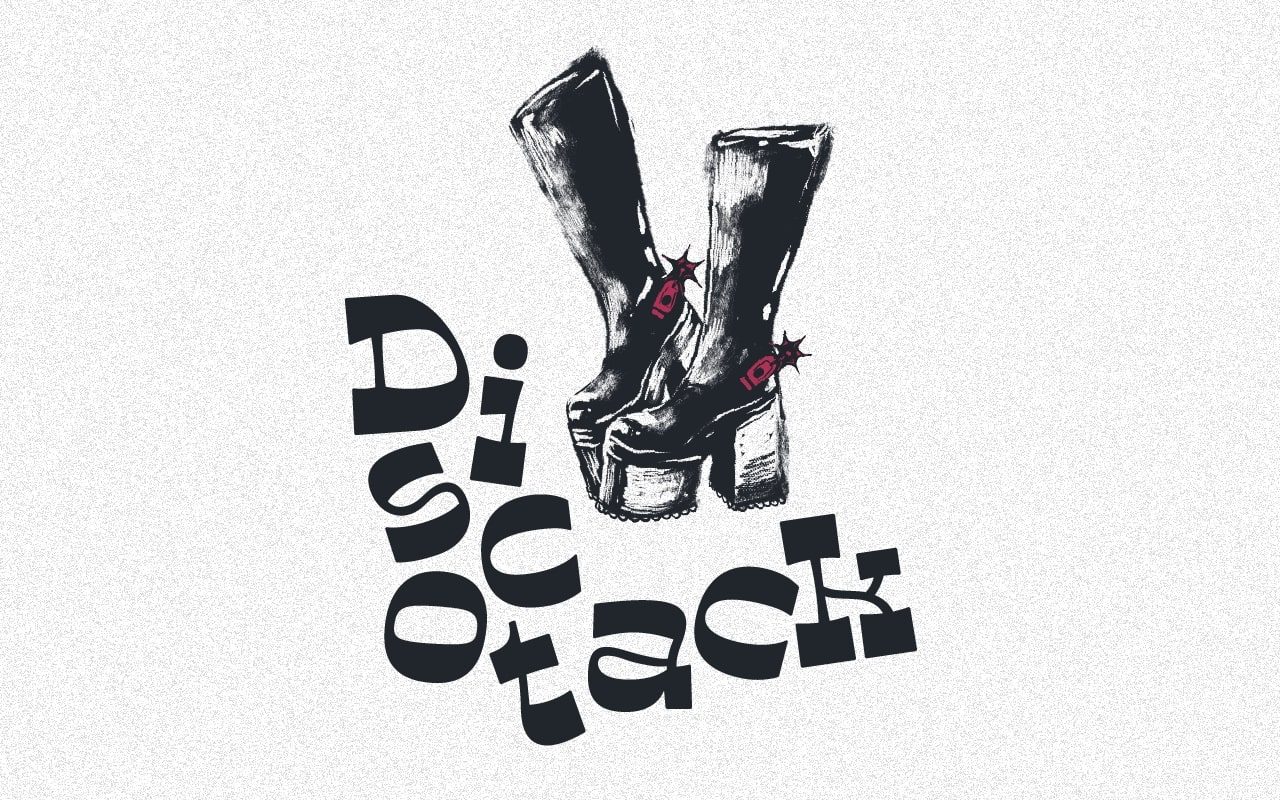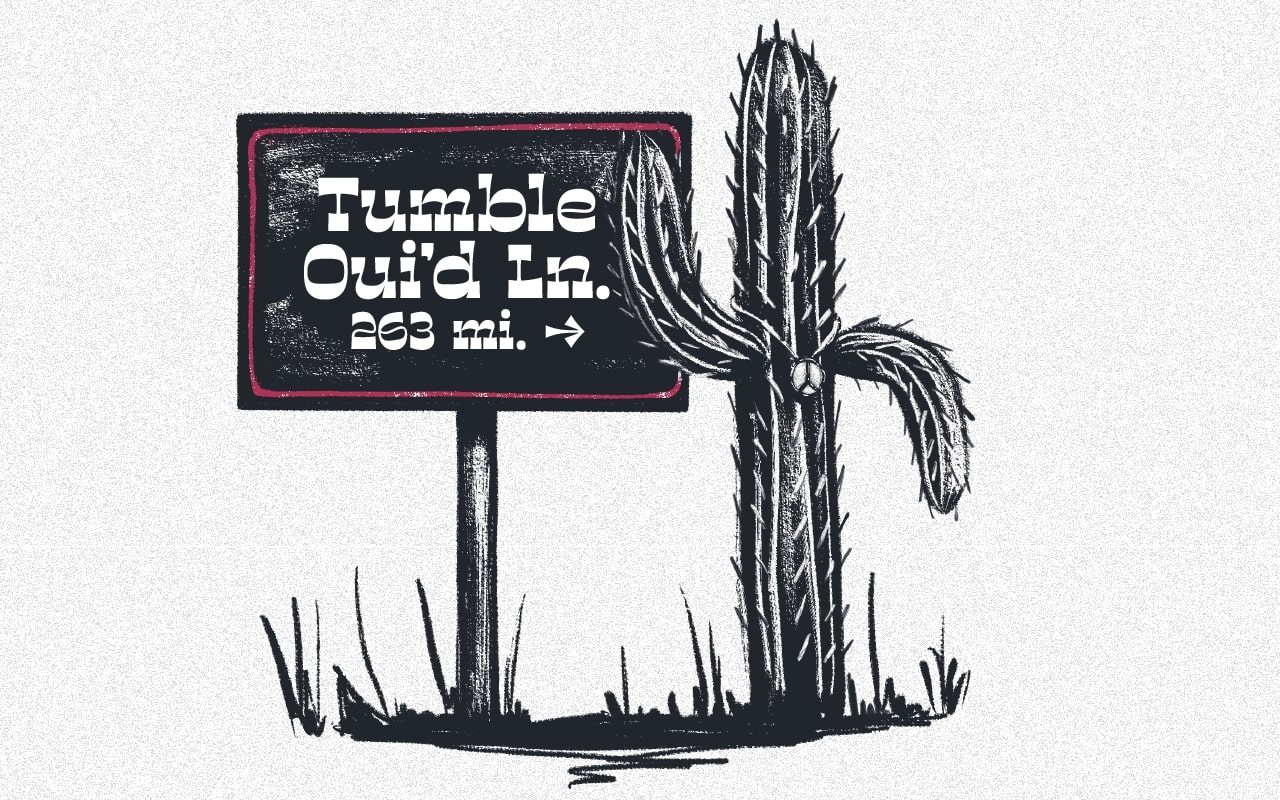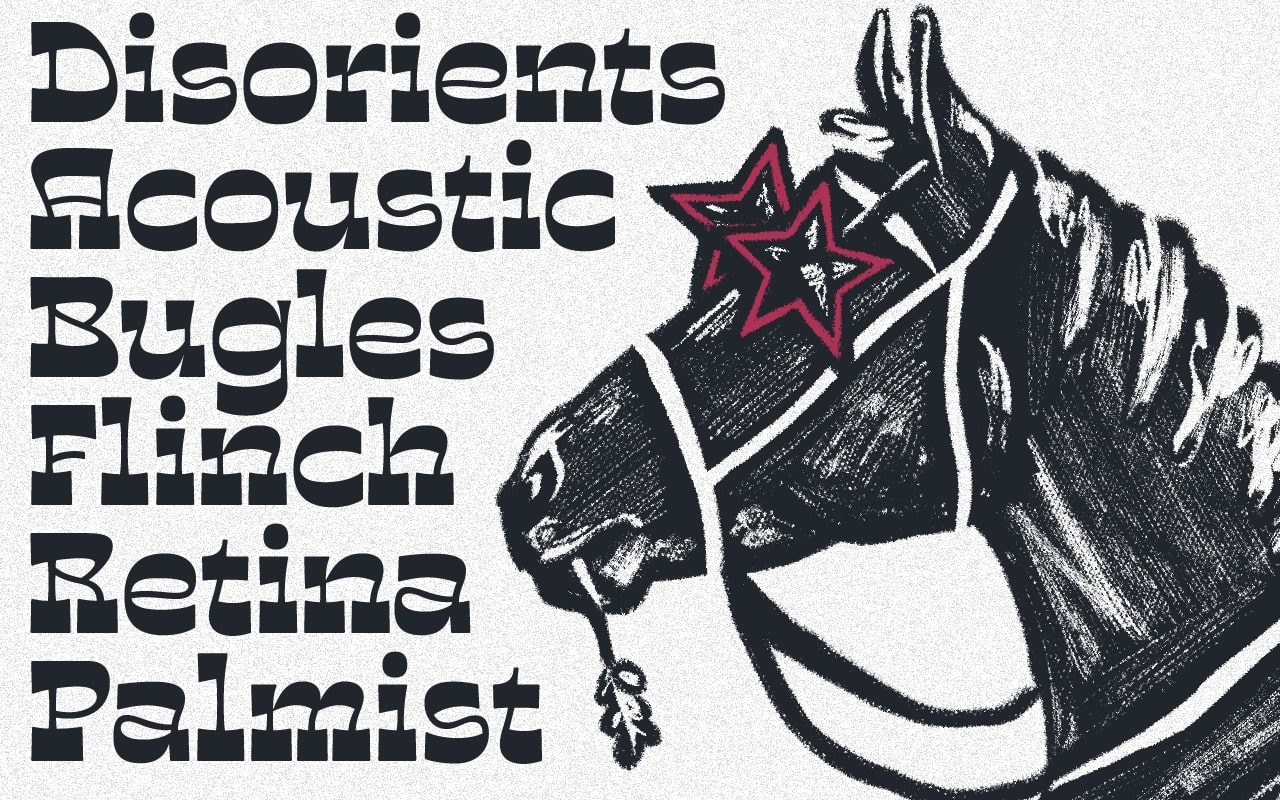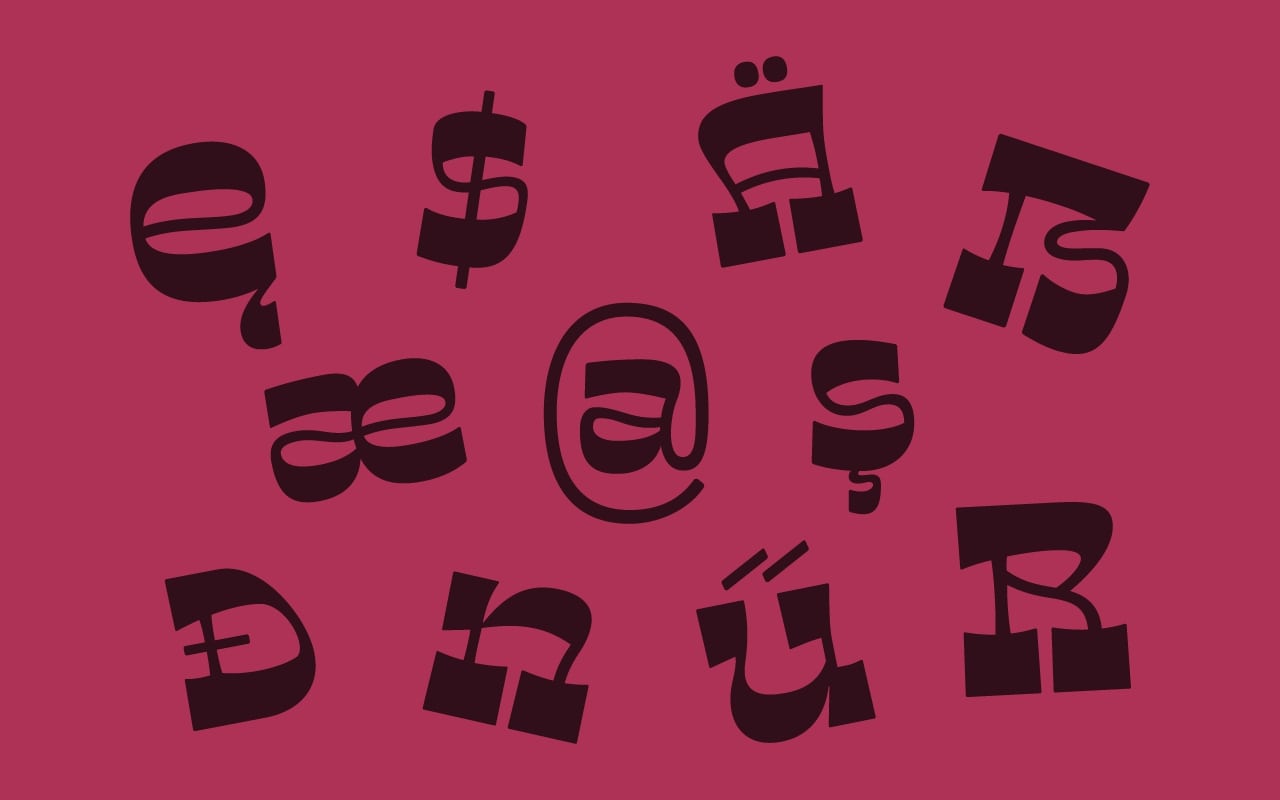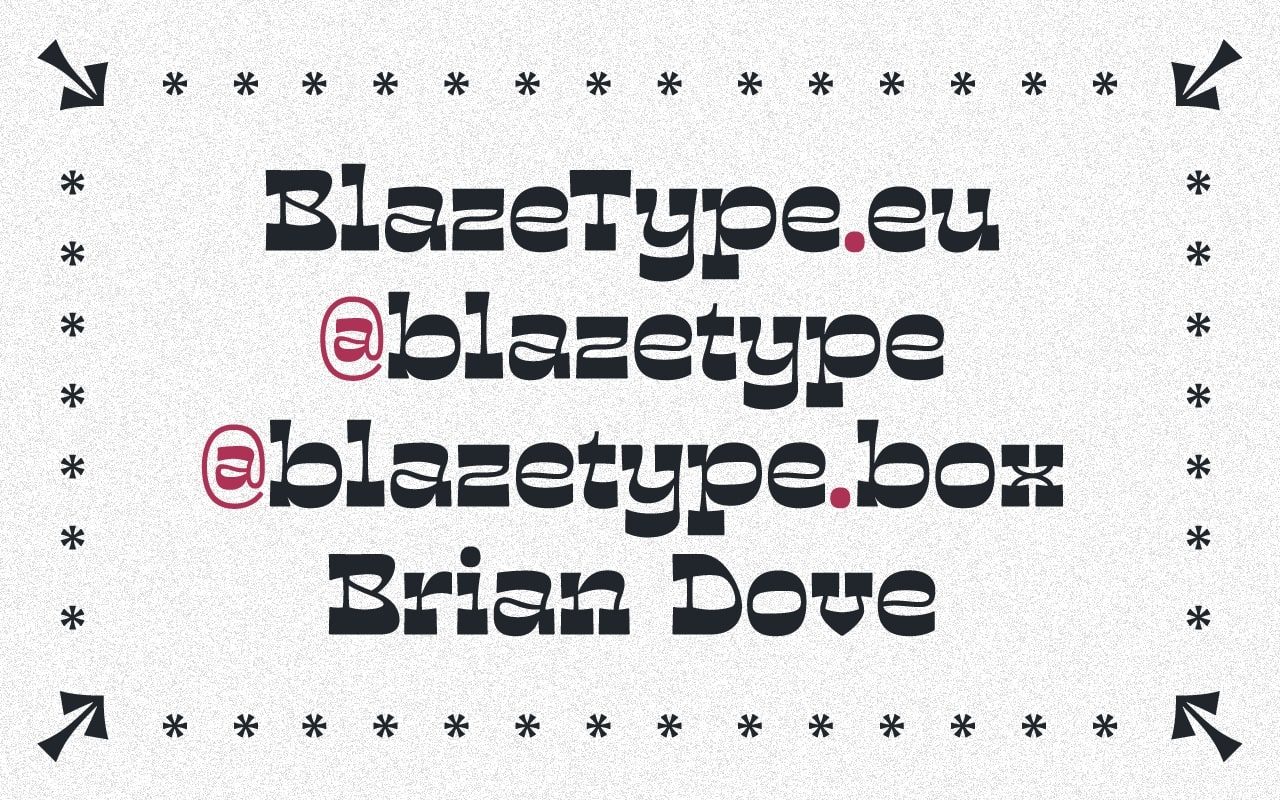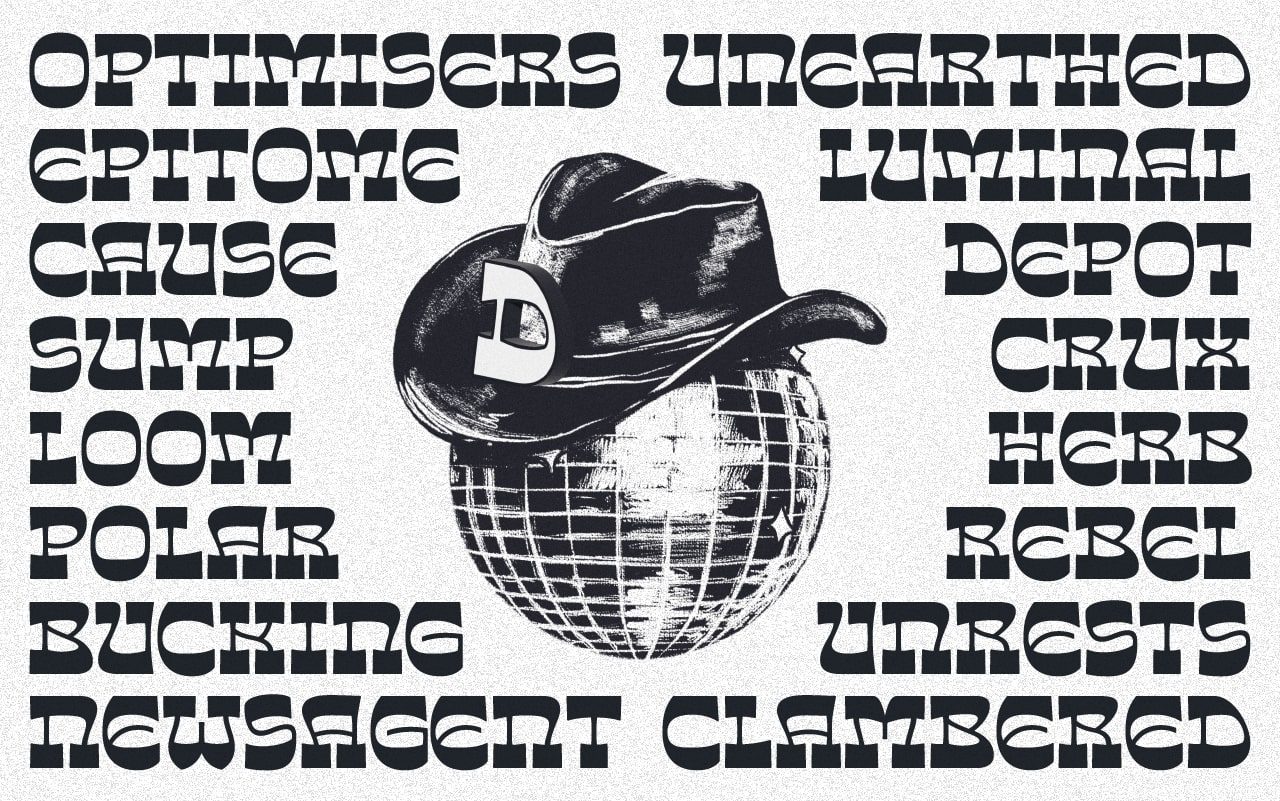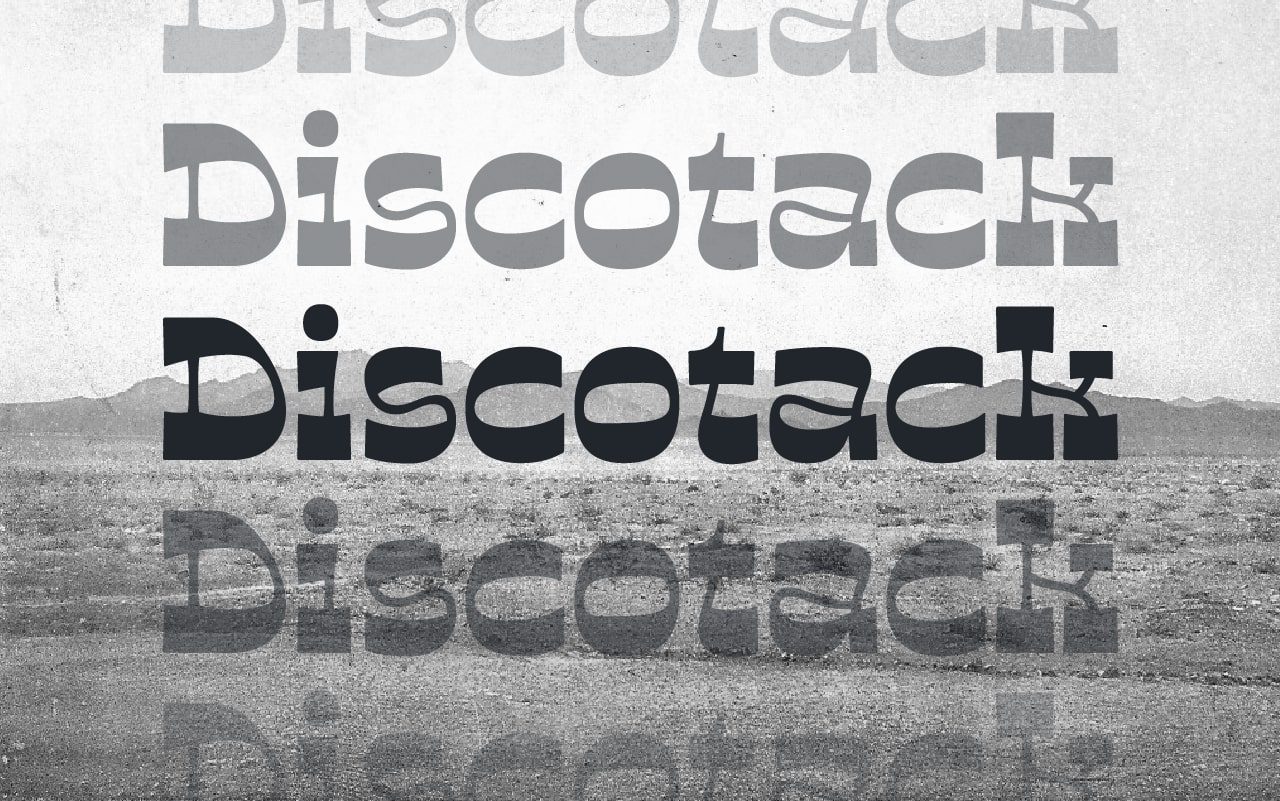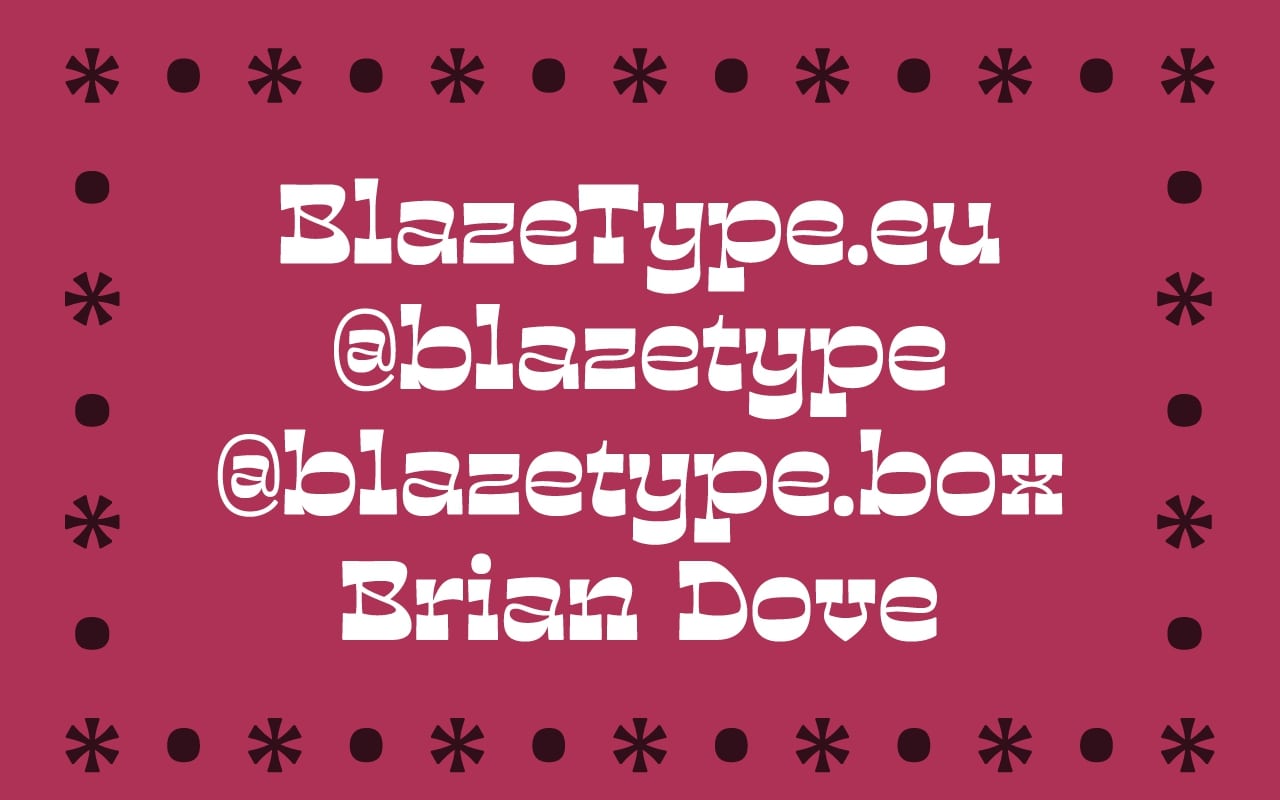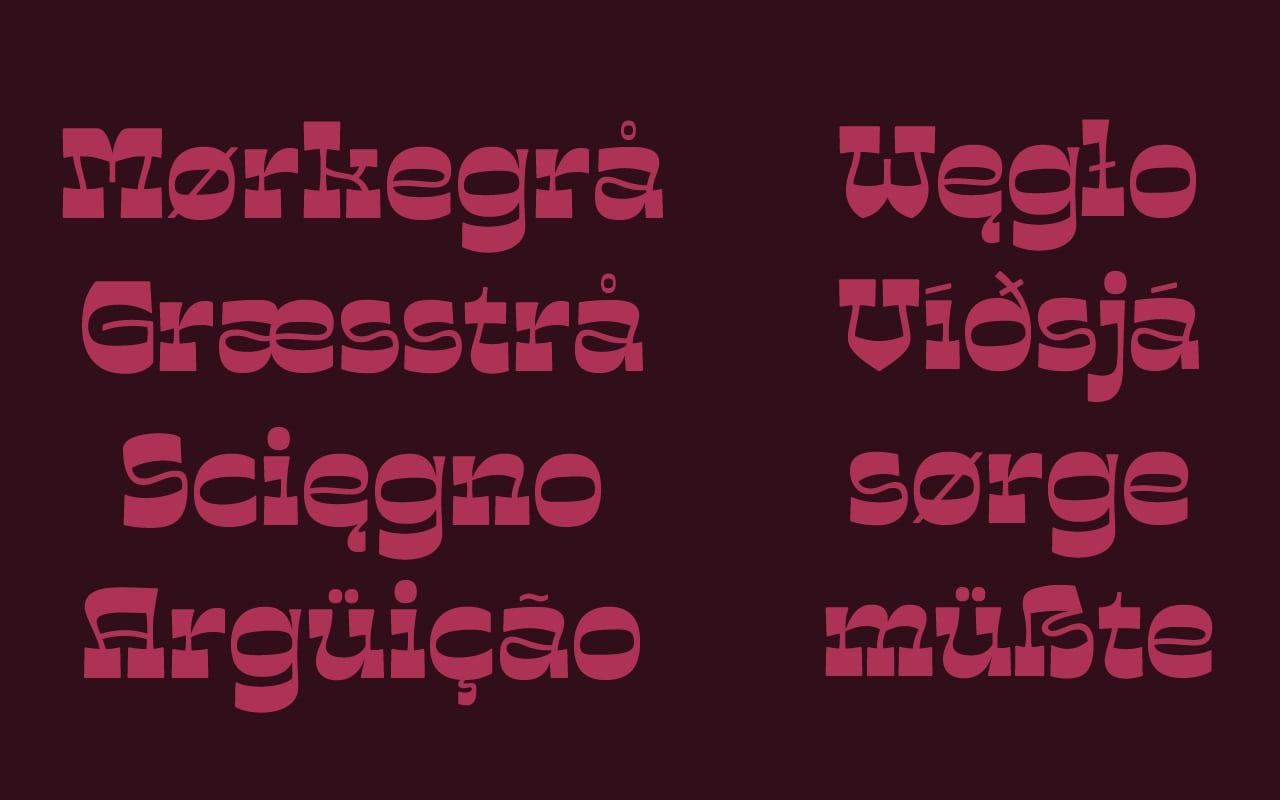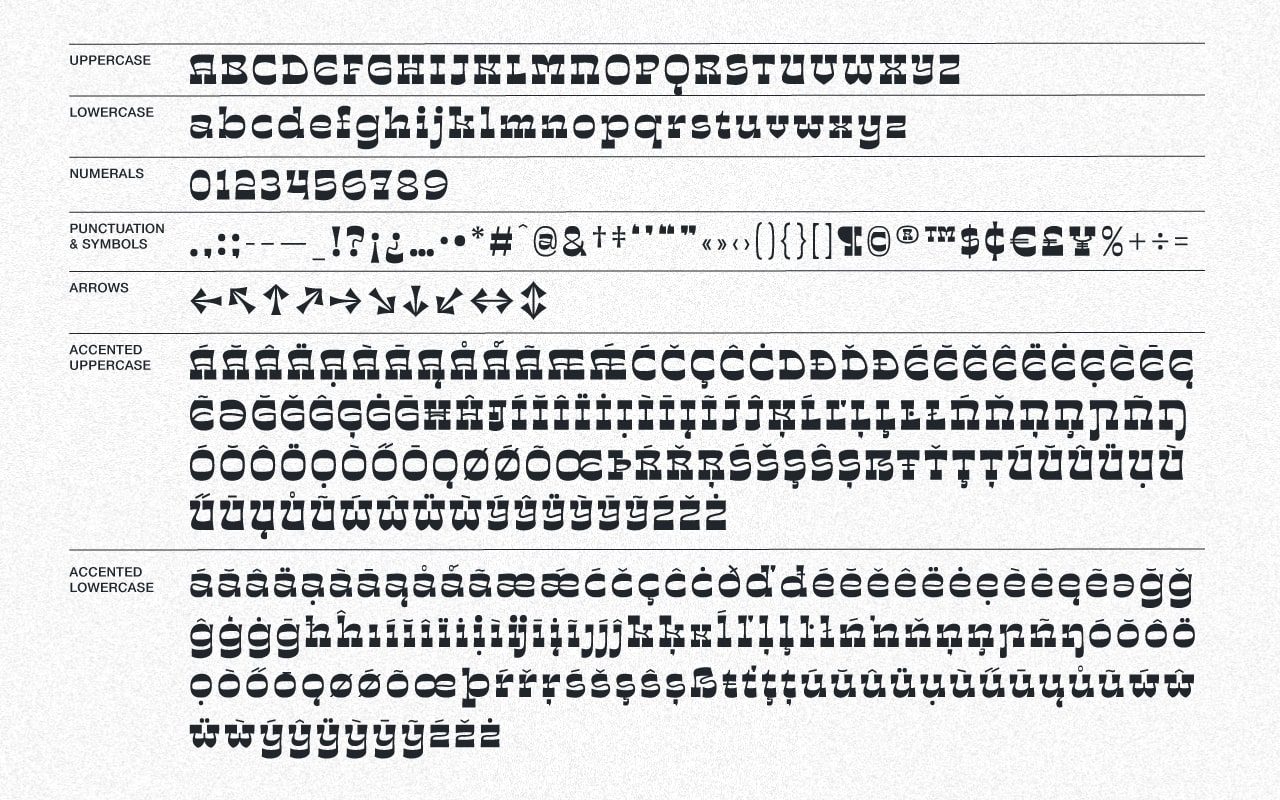
Discotack
Discotack is a mixture of Art nouveau and desert disco. It's a reverse contrast slab serif with organic, flowing strokes and a load of personality. Initially inspired by the uppercase forms of Benguiat’s Discotheque (1967), the font takes an off-kilter approach to a genre typically marked by straight lines and angles. Set it in all caps for a (mostly) flat top and bottom to your lines of text, or add in the lowercase to introduce a playful wavy texture to your type. Discotack is perfect for headlines and logos.